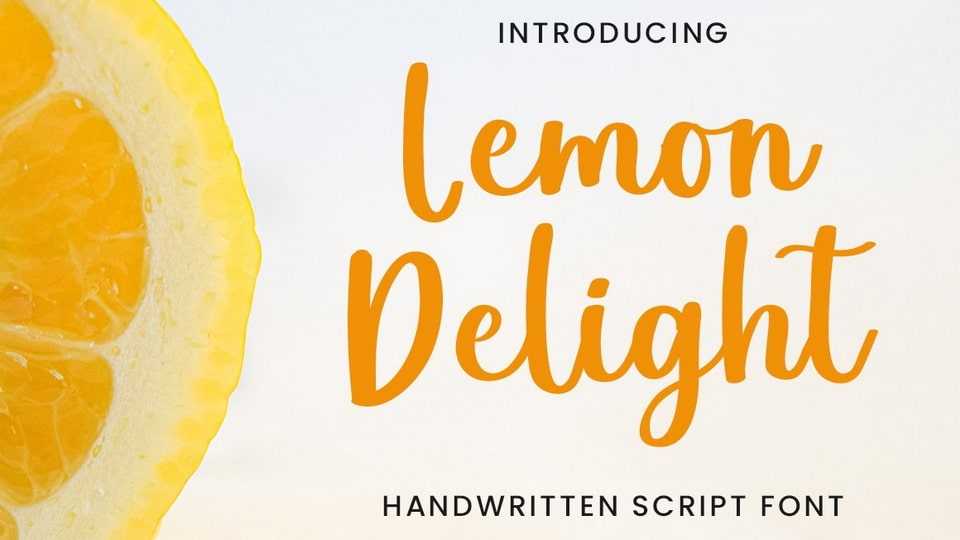
Download Lemon Delight font, a delicate, flowing and unique script typeface. This font is suitable for branding, birthday card, social media, quotes, lettering, watermarks, invitations.